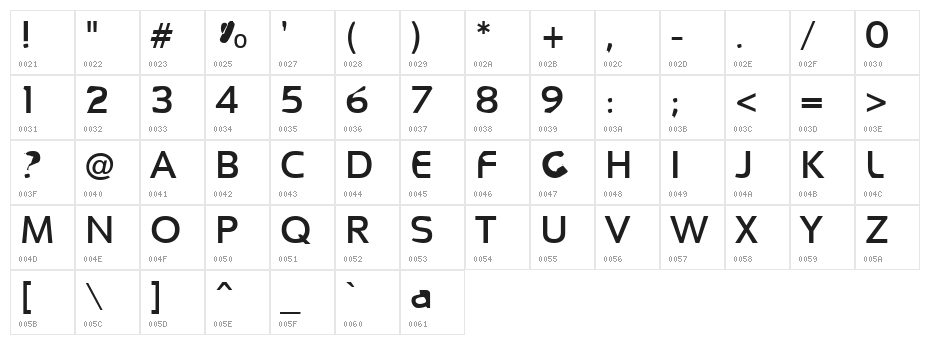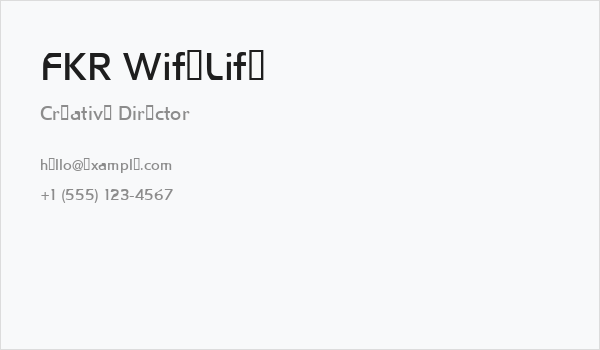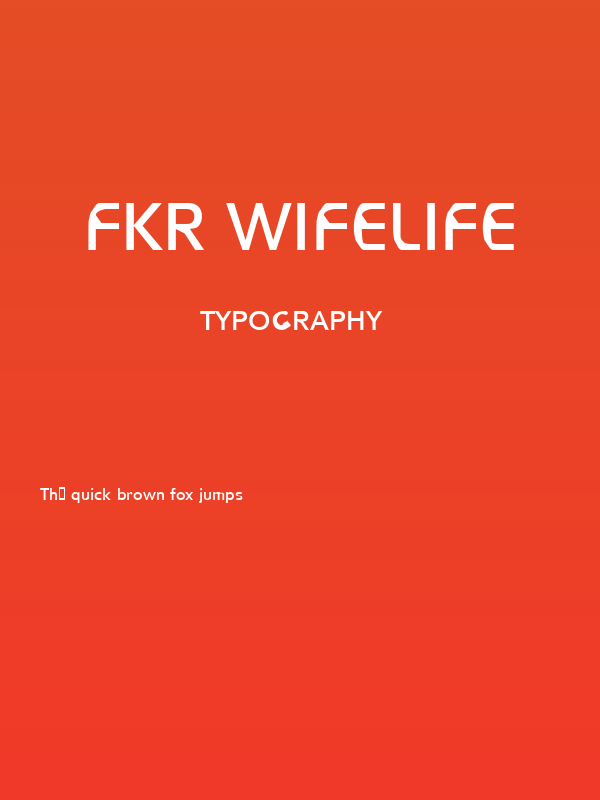
FKR WifeLife Font
FKR WifeLife Description
This font exhibits a modern and clean design, characterized by its bold and geometric letterforms. The uppercase letters are uniform in height, with a slight variation in stroke width that adds a subtle dynamism to the overall appearance. The lowercase letters maintain a consistent style, with rounded edges that soften the geometric structure. The numerals are clear and legible, designed to complement the alphabetic characters seamlessly. Special characters are included, maintaining the same bold and modern aesthetic. The font's overall style is versatile, suitable for both digital and print media.